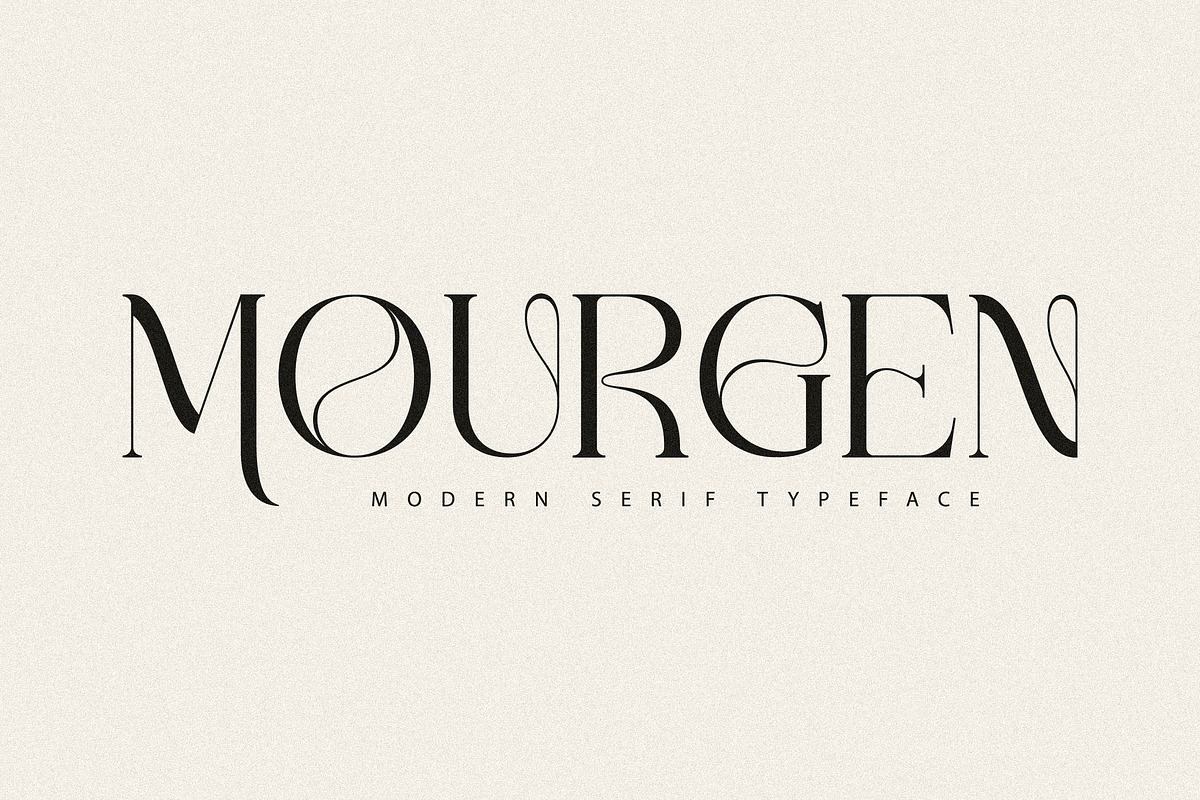
Mourgen Modern Serif Typeface Free Download
Elegant, contemporary, and sophisticated, Mourgen Modern Serif Typeface Free Download is a versatile serif font designed to bring a touch of luxury and refinement to your design projects. Perfect for branding, editorial layouts, high-end websites, packaging, and more, this font blends classic serif style with modern sensibilities.
With its balanced proportions, sharp serifs, and clean lines, Mourgen exudes professionalism and readability, making it ideal for both display and body text. Whether you’re working on a luxury brand, creating a sleek website, or designing an upscale product label, this font adds a timeless elegance to your typography.